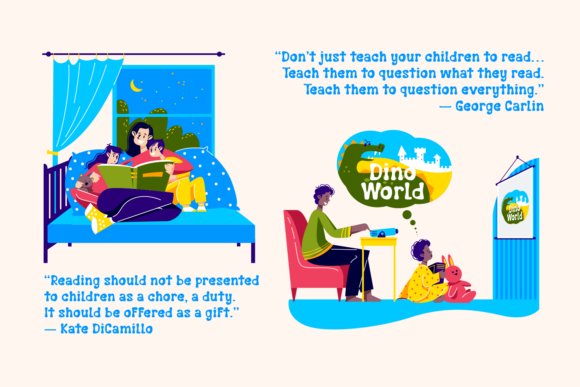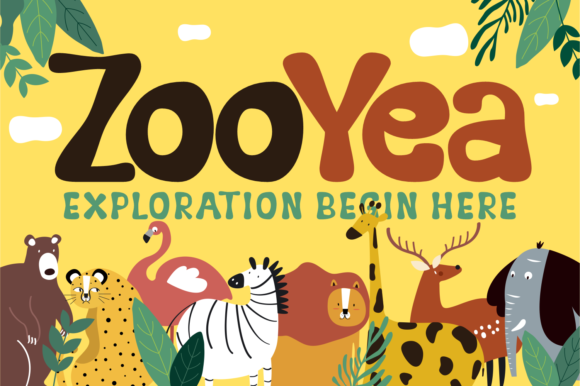
Introduction to Cookiss Font
Cookiss is a cute display font.
It’s playfulness make it great for creative projects, be it inspirational wall posters or for communicating your brand .
Key Features of Cookiss Font
Why Choose Cookiss Font?
Cookiss Font offers exceptional quality and versatility, making it a valuable addition to your design toolkit. Whether you’re creating for personal projects or commercial use, Cookiss Font delivers professional results.